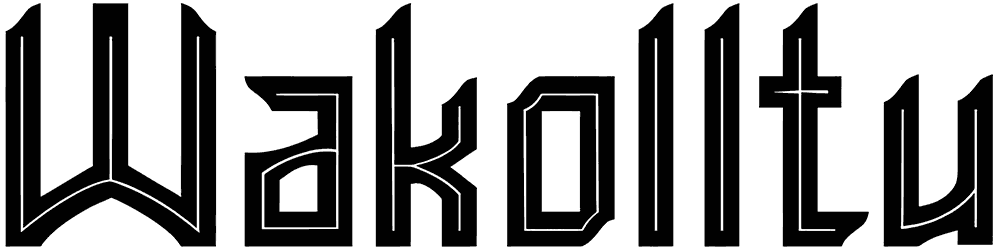
Wakolltu Font
Just wait until you get to see your text in the new aesthetic glow borrowed from Wakolltu, and next thing you know, you can’t get enough of this cool Egyptian font.
Designed to approach the audience with just enough playfulness, Wakolltu knows how to stress your message but also keep things creative. Did you ever imagine your gaming logos, cinema posters, apparel tags, and everything else you have in mind, so artistically enriched with a fun inline font like this?